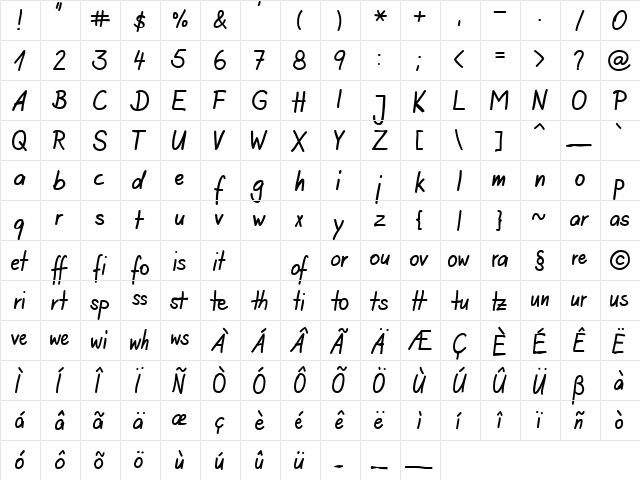
HW Agilo DB Normal
Design Context for HW Agilo DB Typeface
HW Agilo DB takes a measured approach to typography — its balanced proportions and neutral character make it a reliable workhorse for both digital and print work.